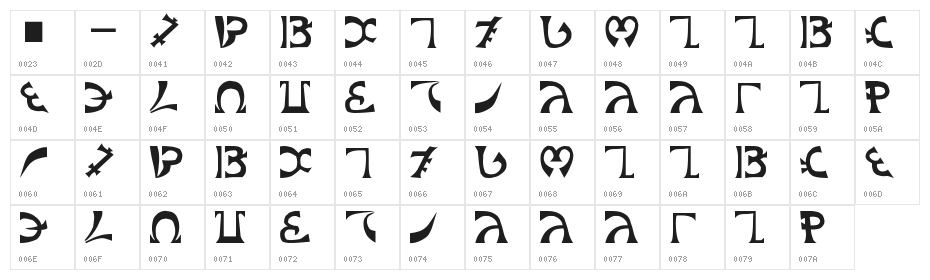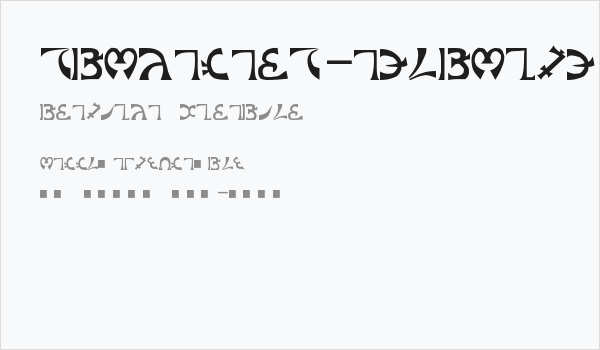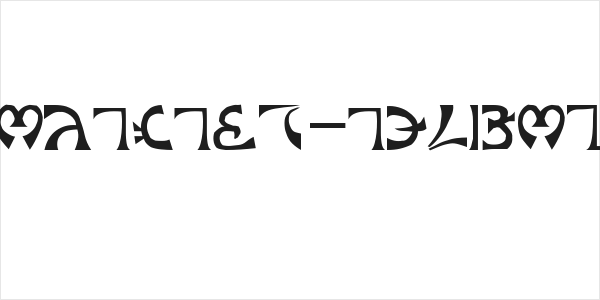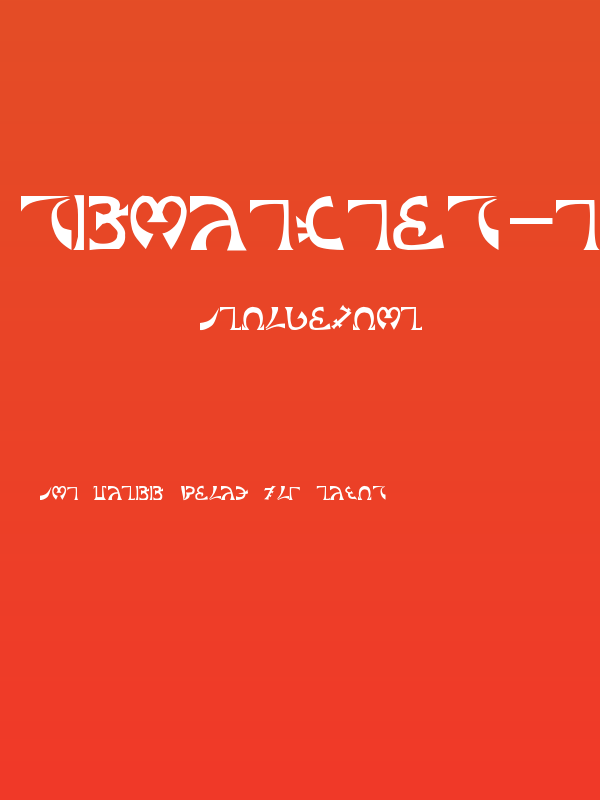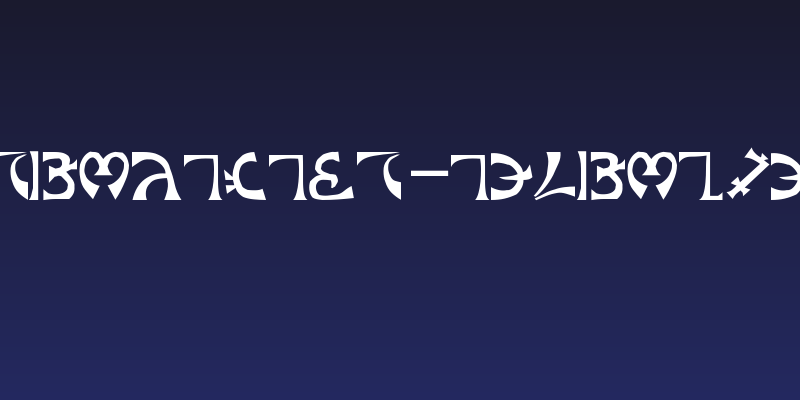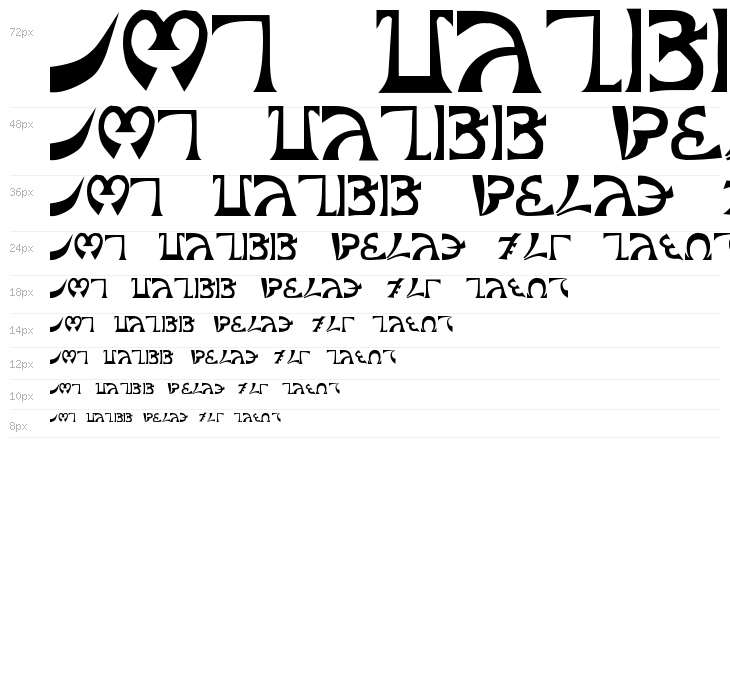
Schuelers-Enochian Font
Schuelers-Enochian Description
This font features a highly decorative and intricate design, reminiscent of ancient scripts with a mystical flair. The characters are bold and angular, with sharp edges and unique curves that give it an enigmatic appearance. The uppercase letters are particularly elaborate, with some characters incorporating heart-like shapes and others featuring dramatic, sweeping strokes. The lowercase letters maintain the same stylistic elements but are slightly more subdued. The numerals are represented by solid black squares, adding to the font's mysterious and cryptic nature. This font is ideal for projects that require a touch of the arcane or esoteric, making it perfect for fantasy-themed designs or artistic expressions that seek to evoke a sense of mystery.
| Overall Style | Mystical, Decorative |
| Use Case | Logos, Posters, Artistic Designs |
| Proposed Projects | Fantasy book covers, mystical event posters, artistic logos, esoteric-themed merchandise. |